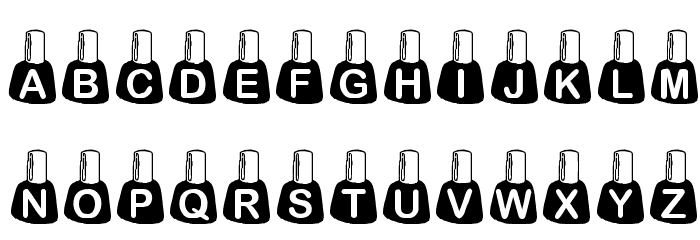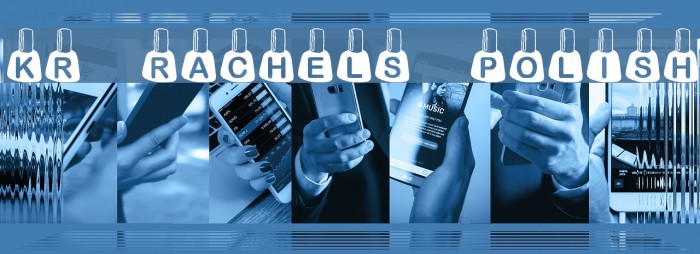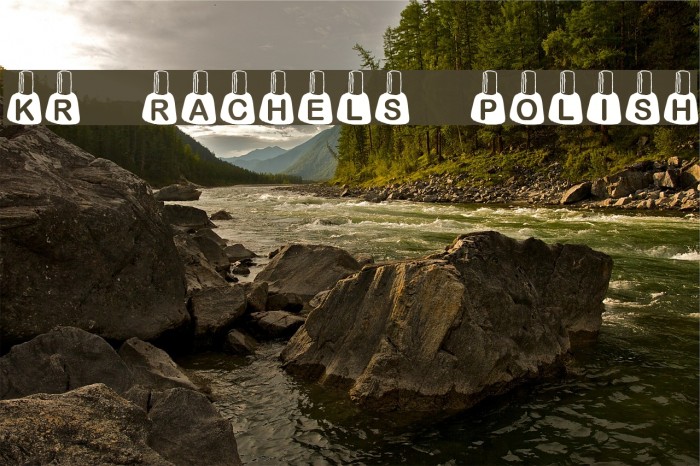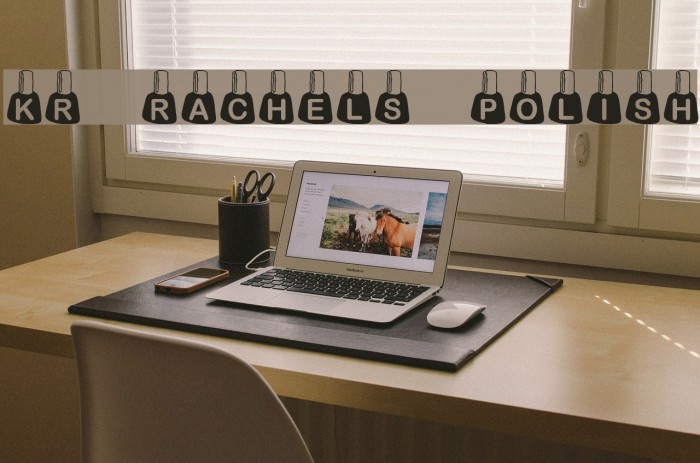
KR Rachel's Polish Font
This font features a bold, playful style with each character enclosed in a rounded, keycap-like shape. The letters are uppercase, with a uniform thickness that gives them a strong, impactful presence. The design is reminiscent of typewriter keys, offering a nostalgic yet modern appeal. The characters are evenly spaced, ensuring readability while maintaining a unique aesthetic. The font's distinctive look makes it suitable for creative and informal projects, where a touch of whimsy is desired. Its boldness ensures that it stands out, making it ideal for attention-grabbing headlines or titles.
A bold, playful font with characters enclosed in keycap-like shapes, offering a nostalgic yet modern appeal.
- Proposed Projects: Ideal for creative projects, children's books, playful branding, or any design needing a fun, retro touch.
- Overall Style: Playful, Retro